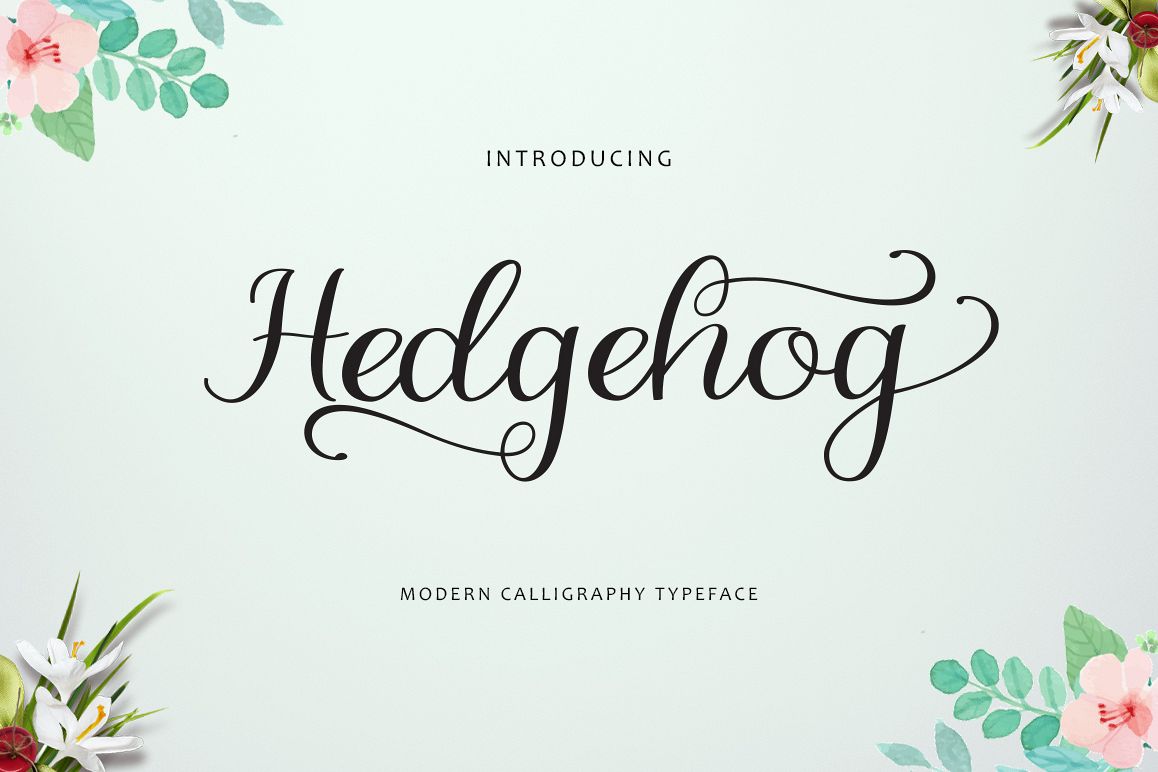
Hedgehog
Hedgehog is a script font that has the characteristic wedding, it is very suitable to make
certain label and event business and you could be using for a unique piece.
The alternative characters in hedgehog Font were divided into several OpenType features such as